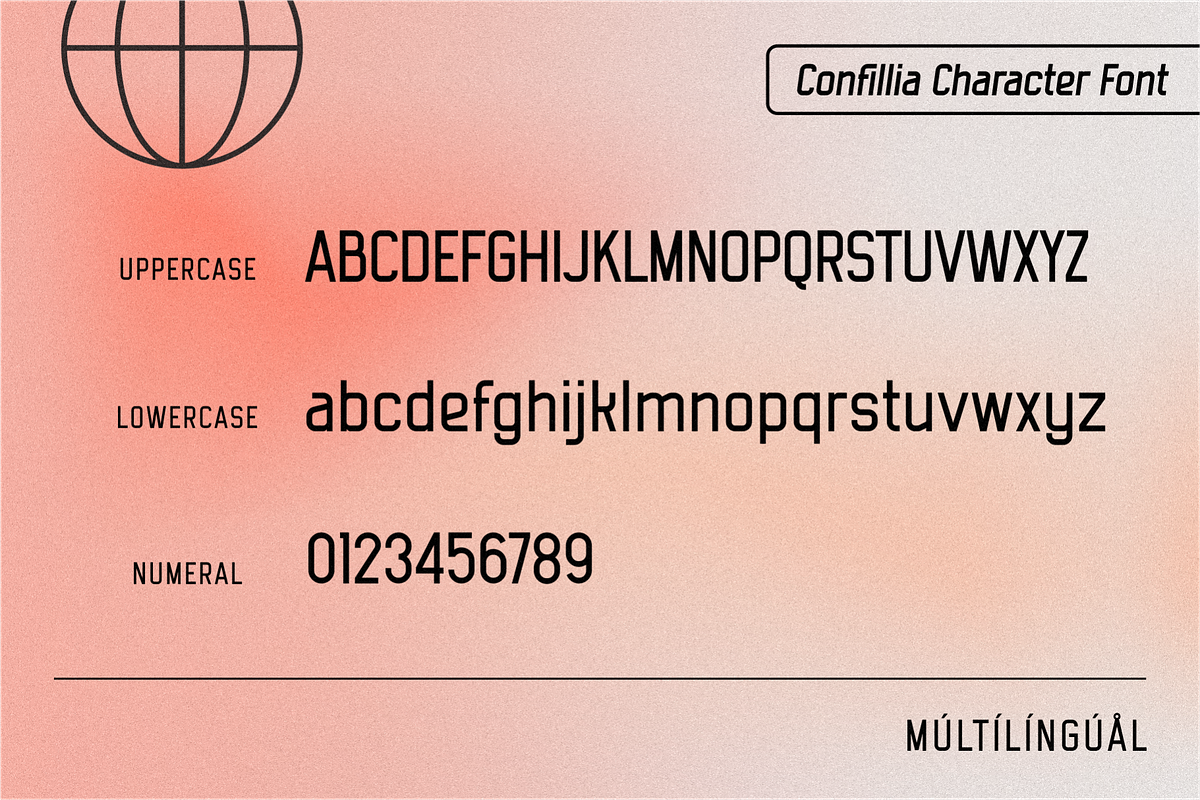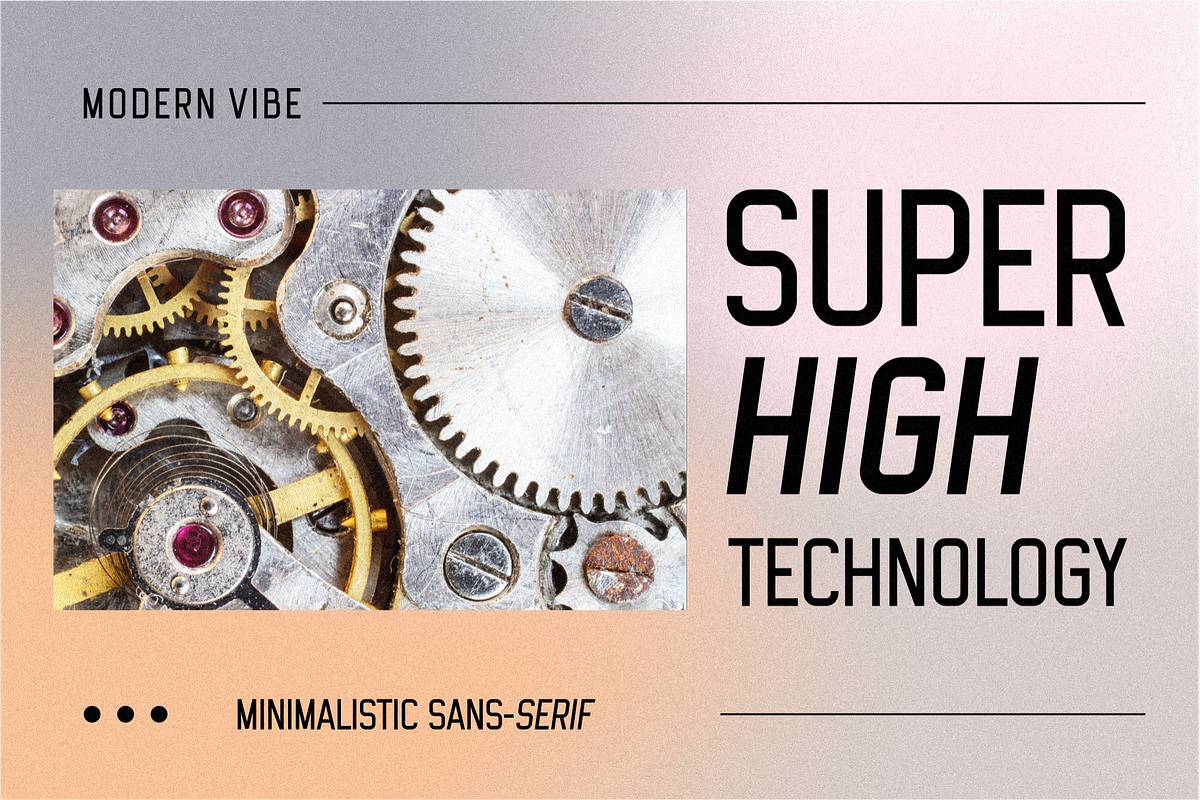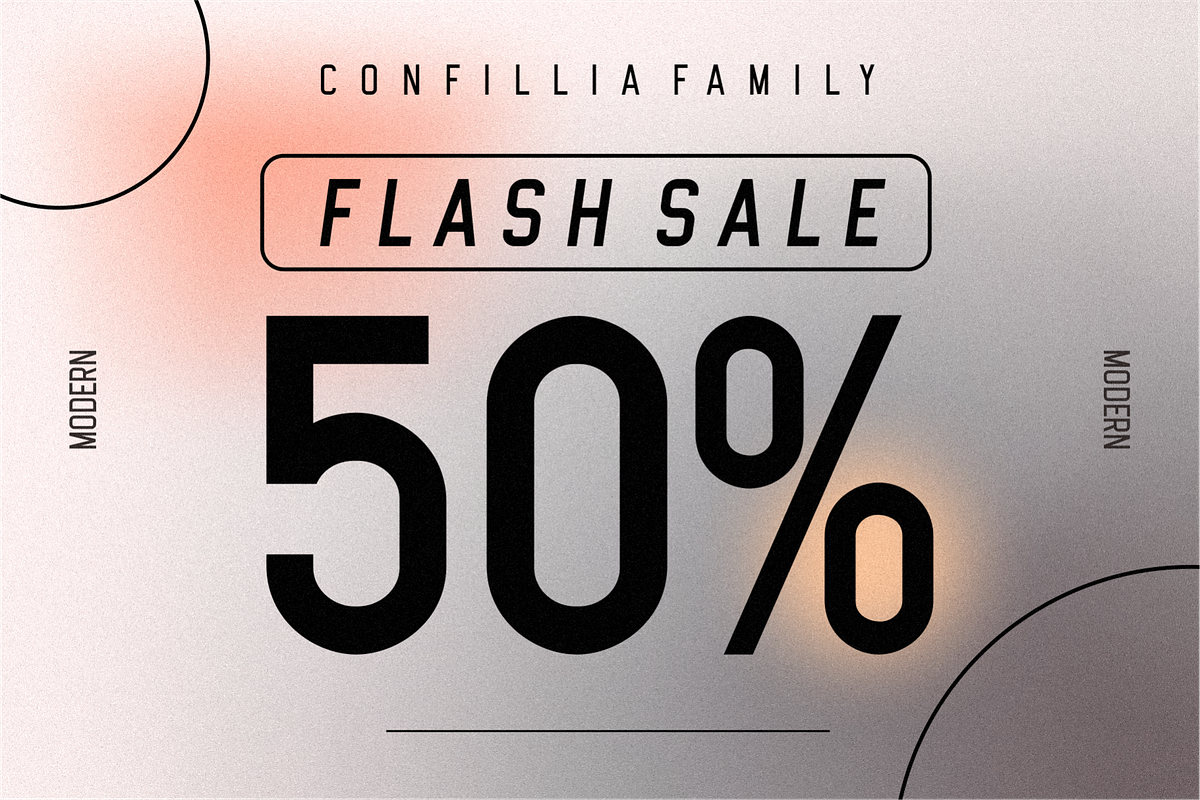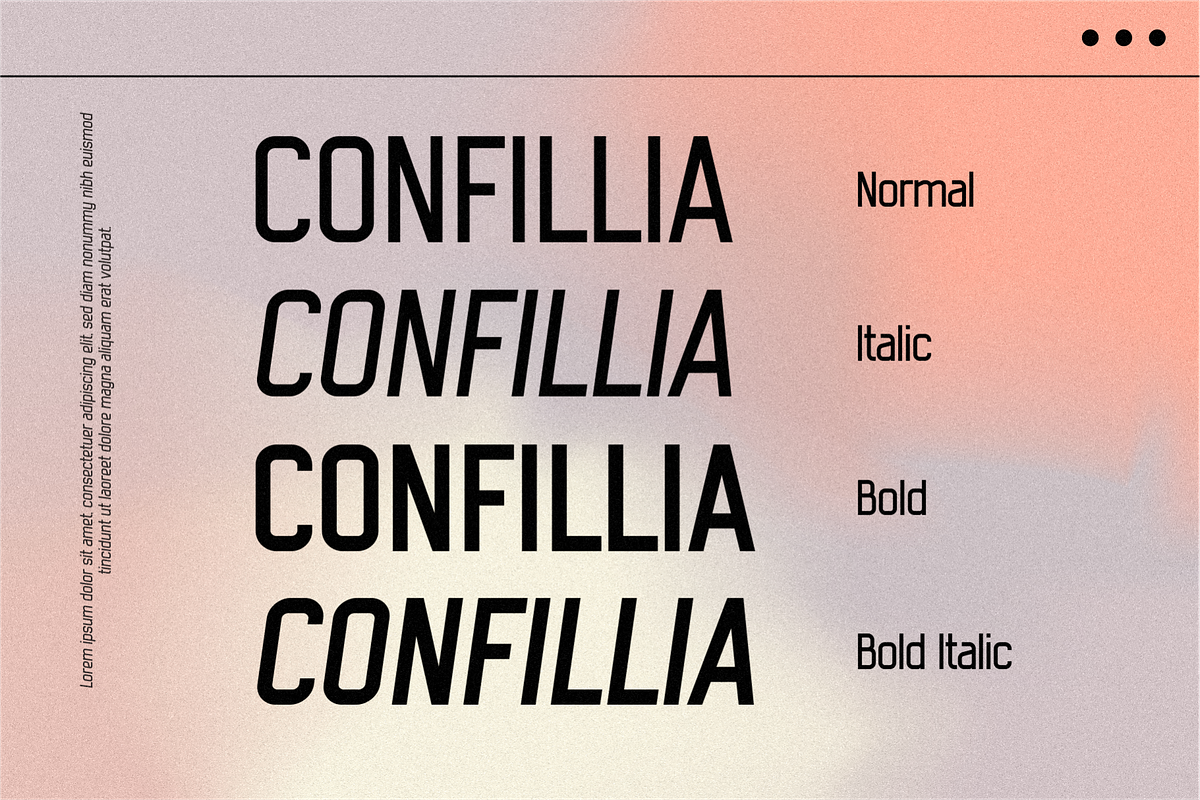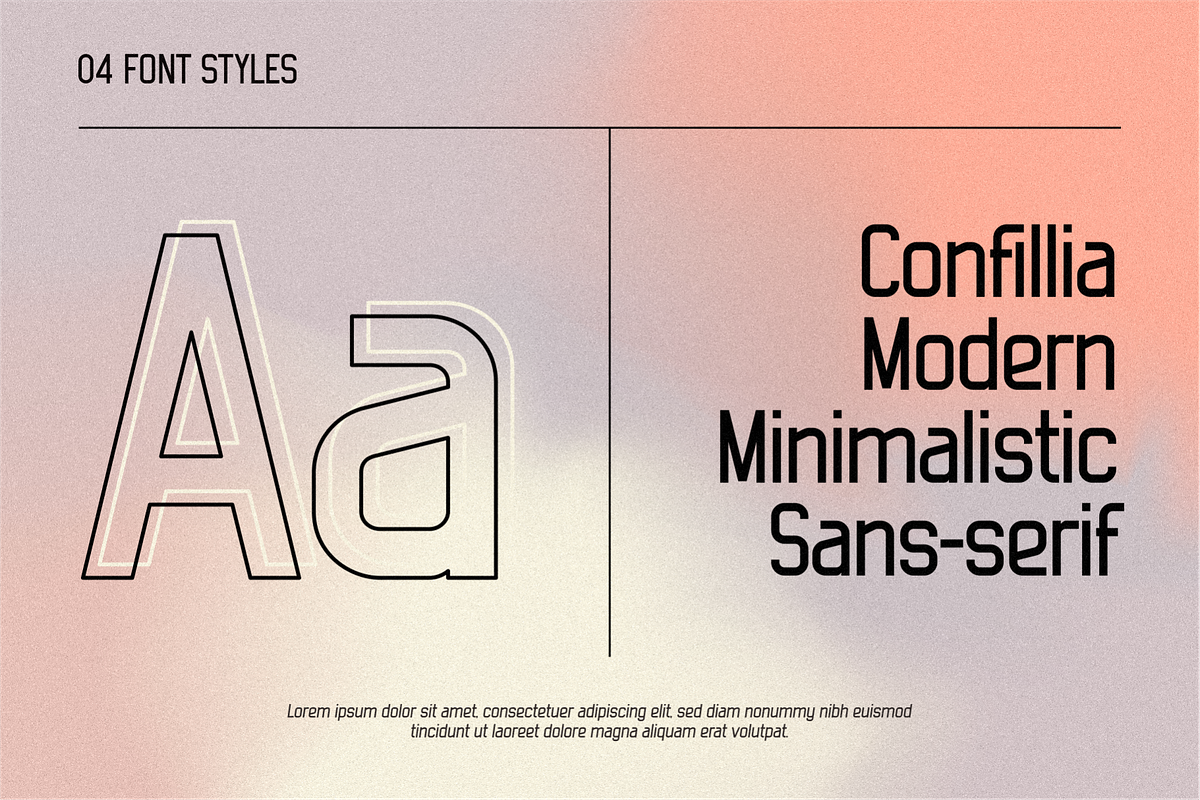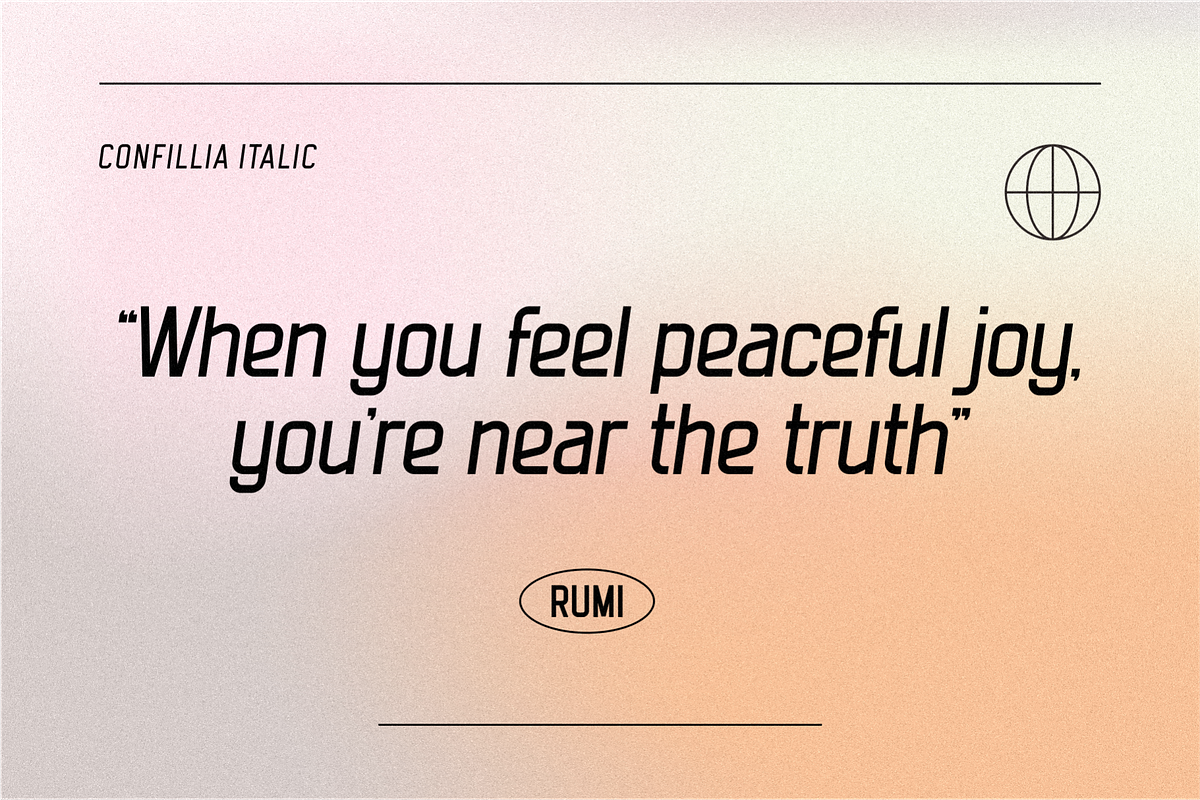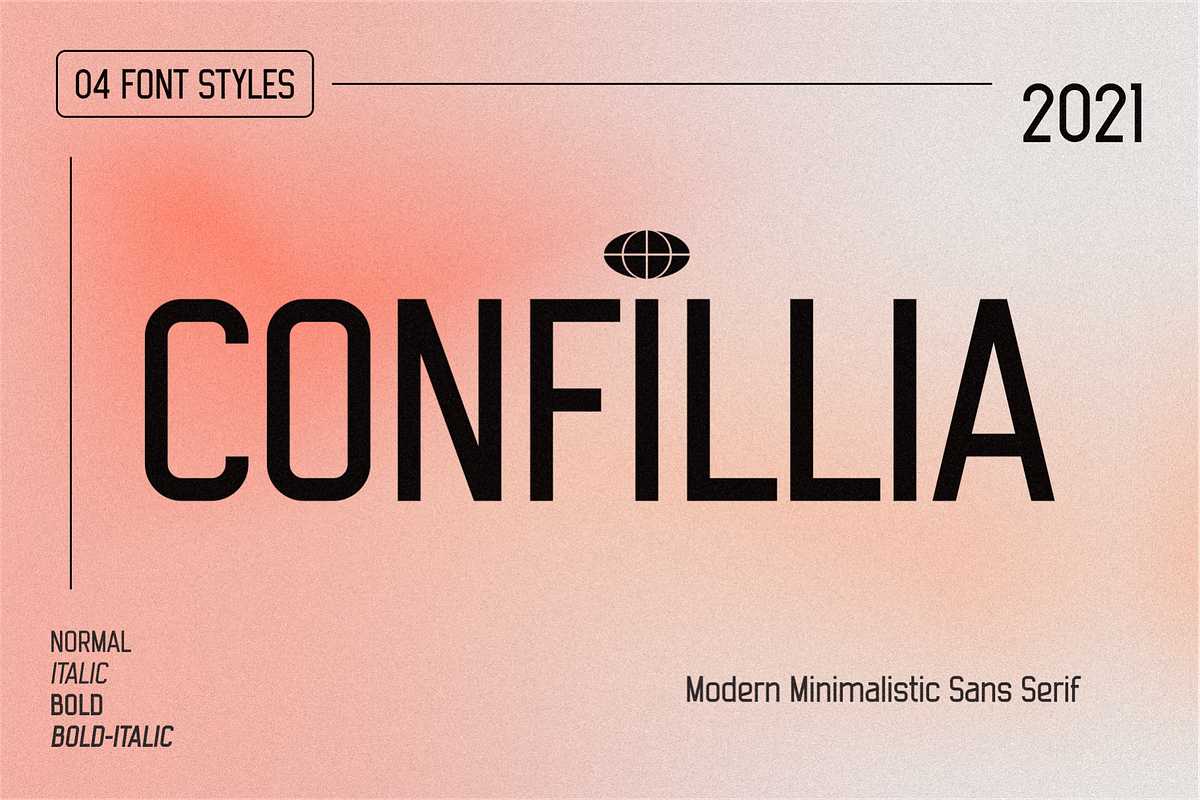
Confillia Sans Serif
Inspired by things related to something modern like today, with high characters and available in 4 types, normal, italic, bold and bold italic.